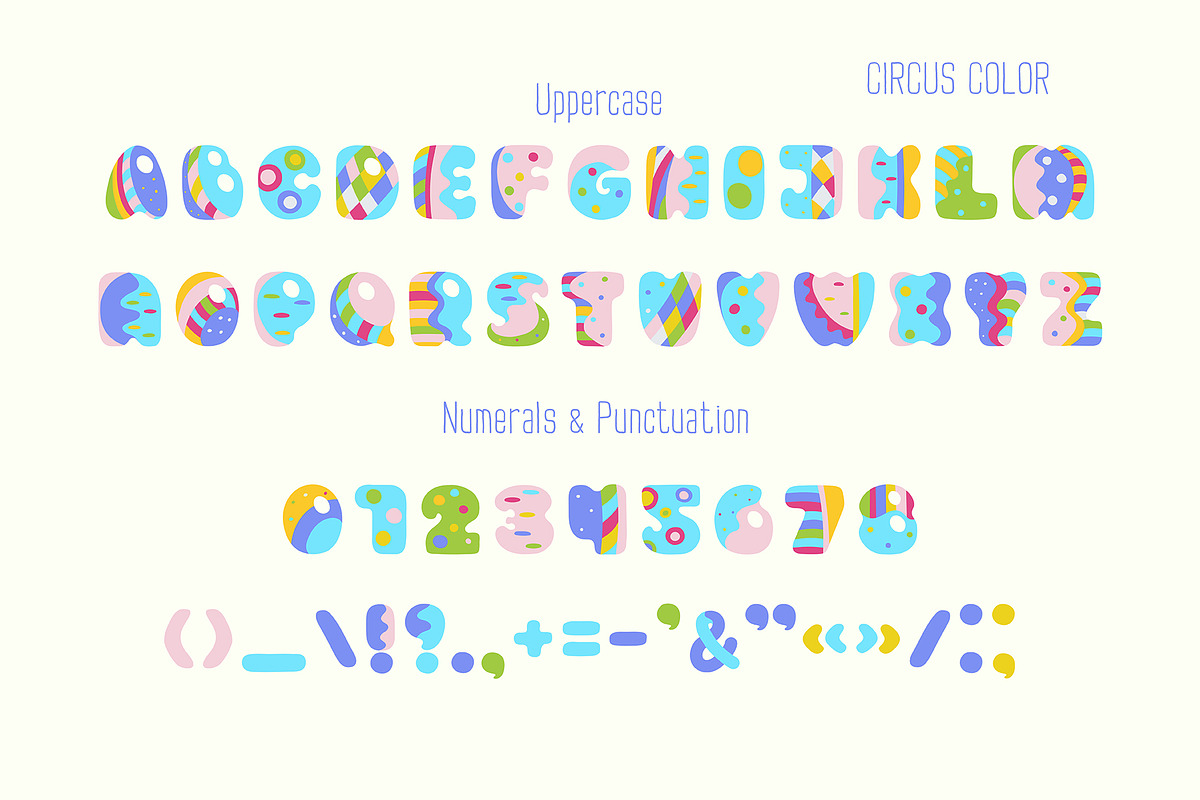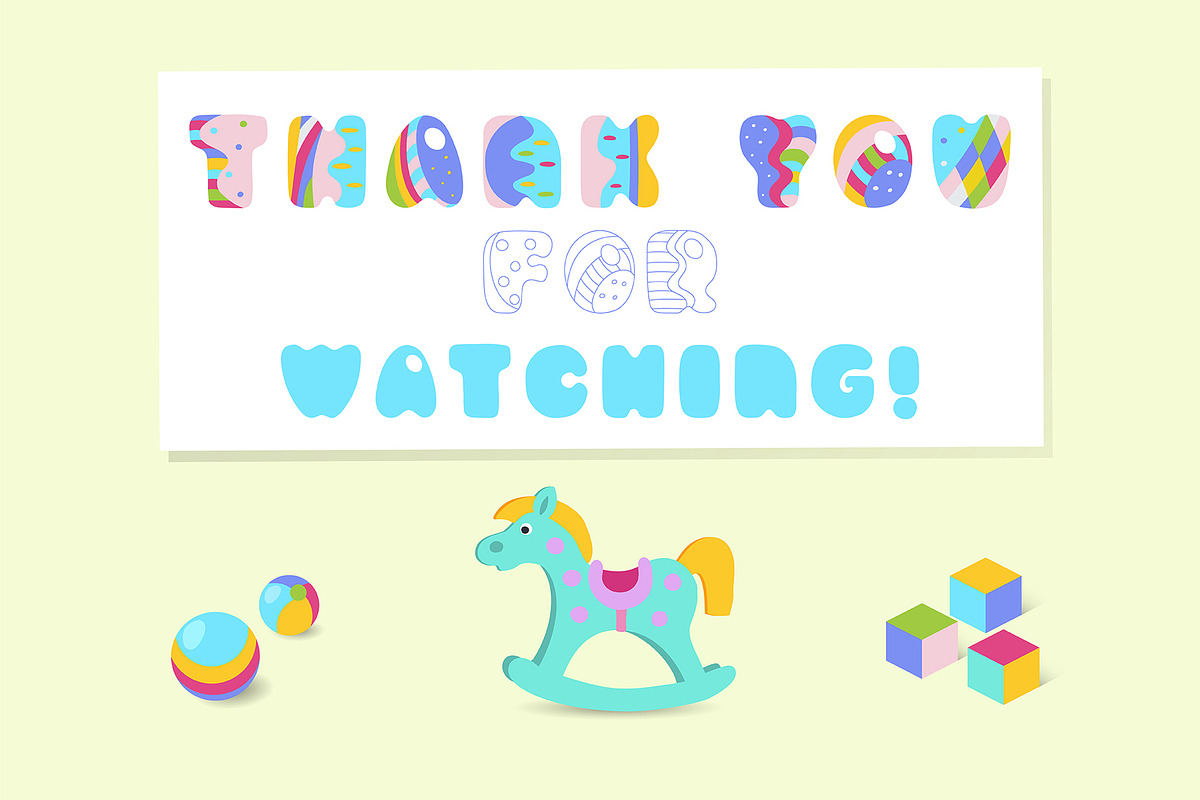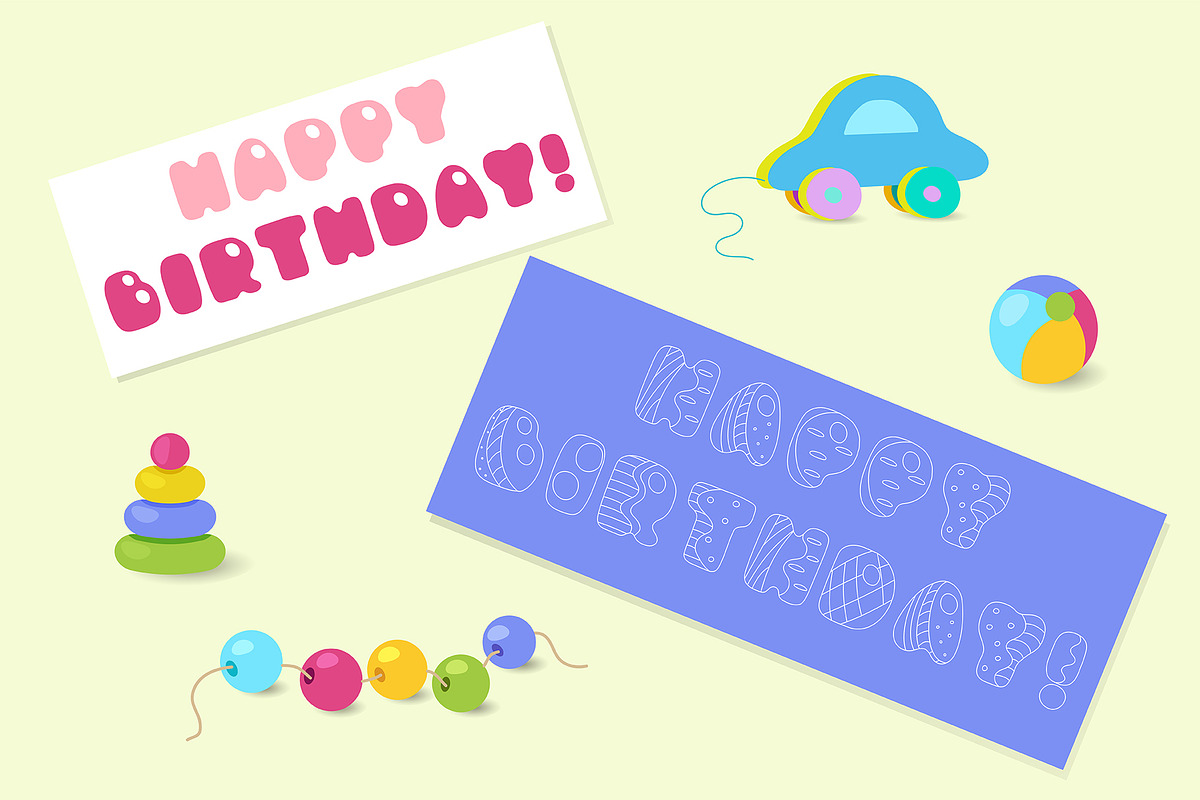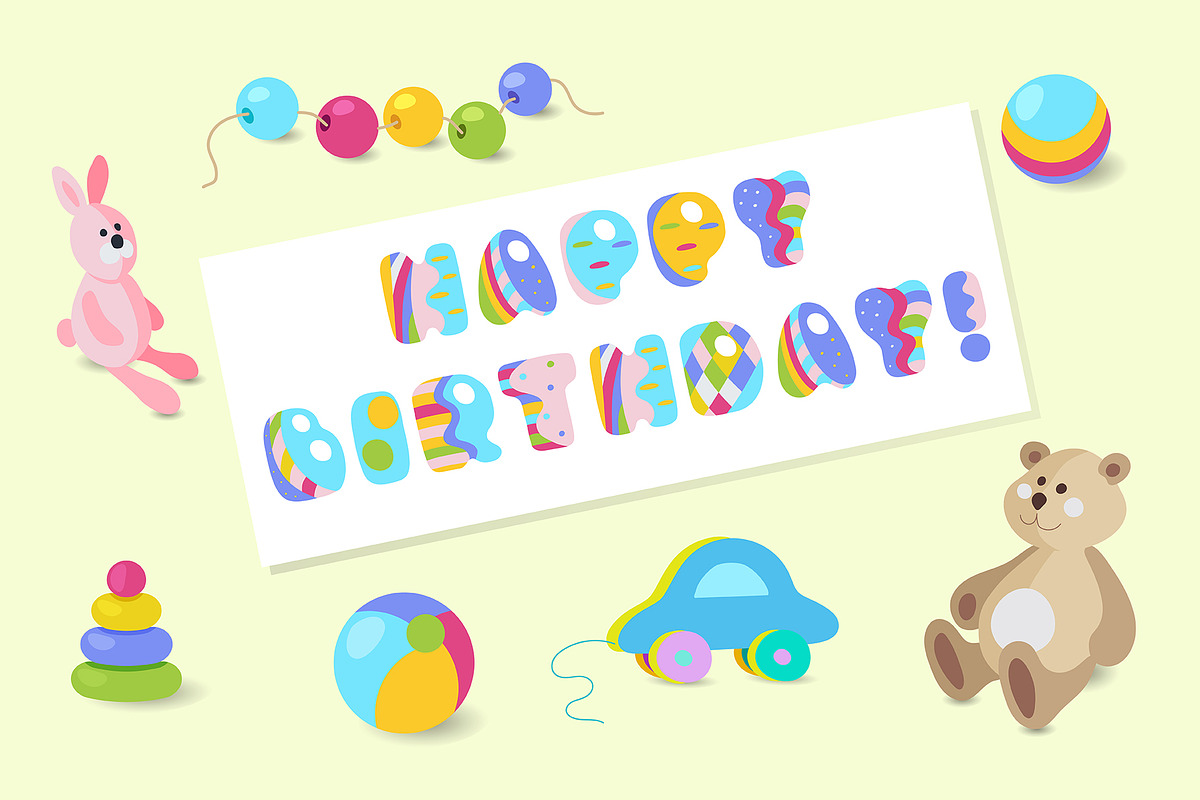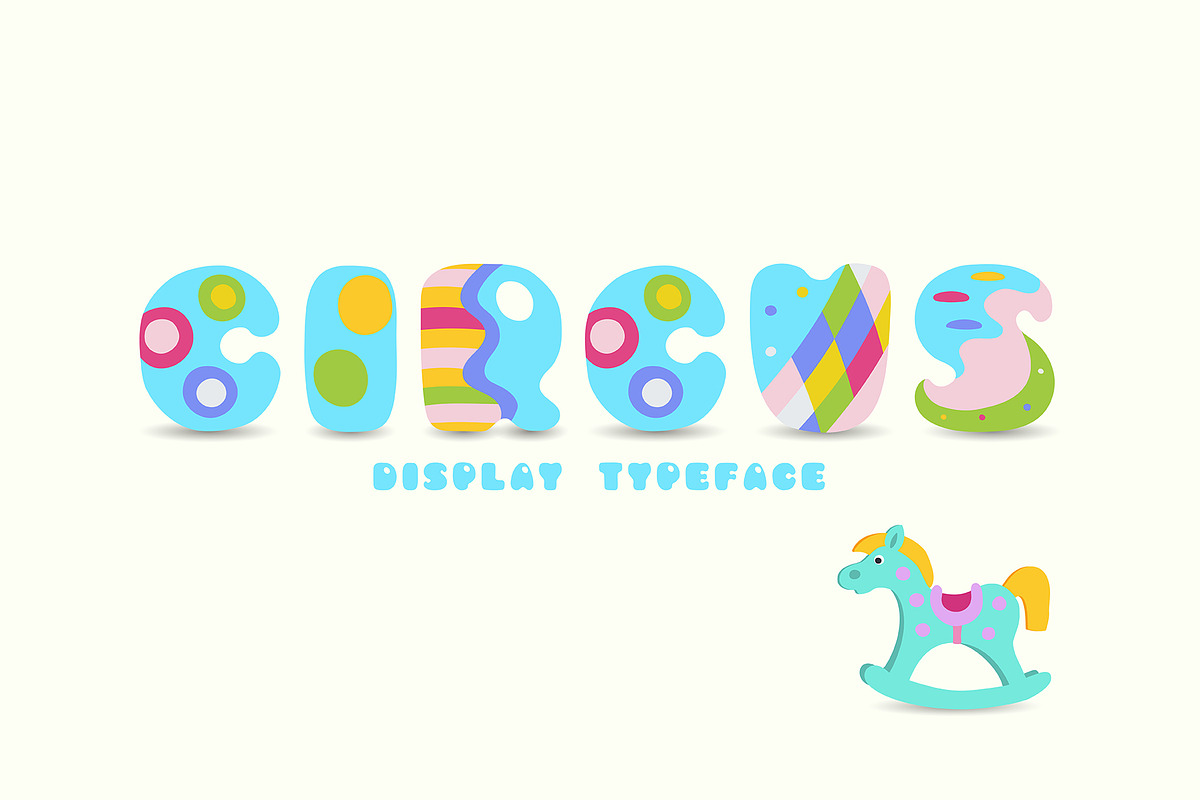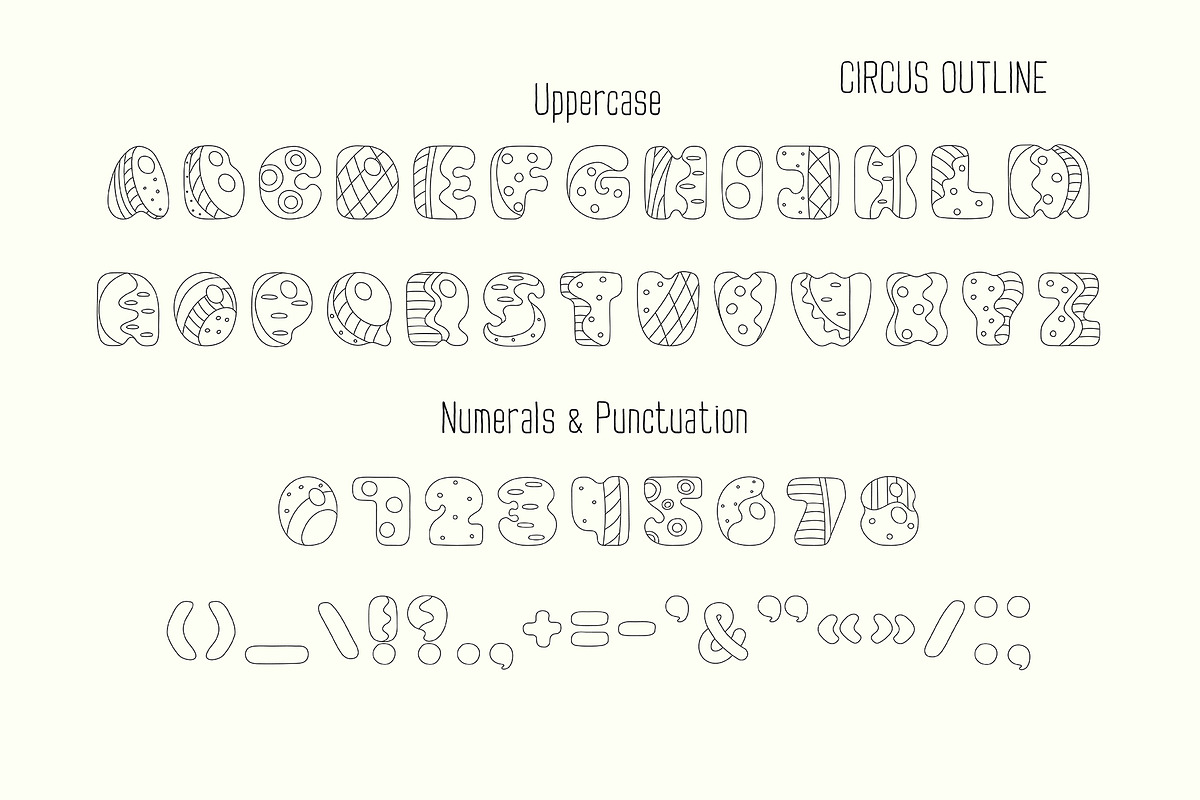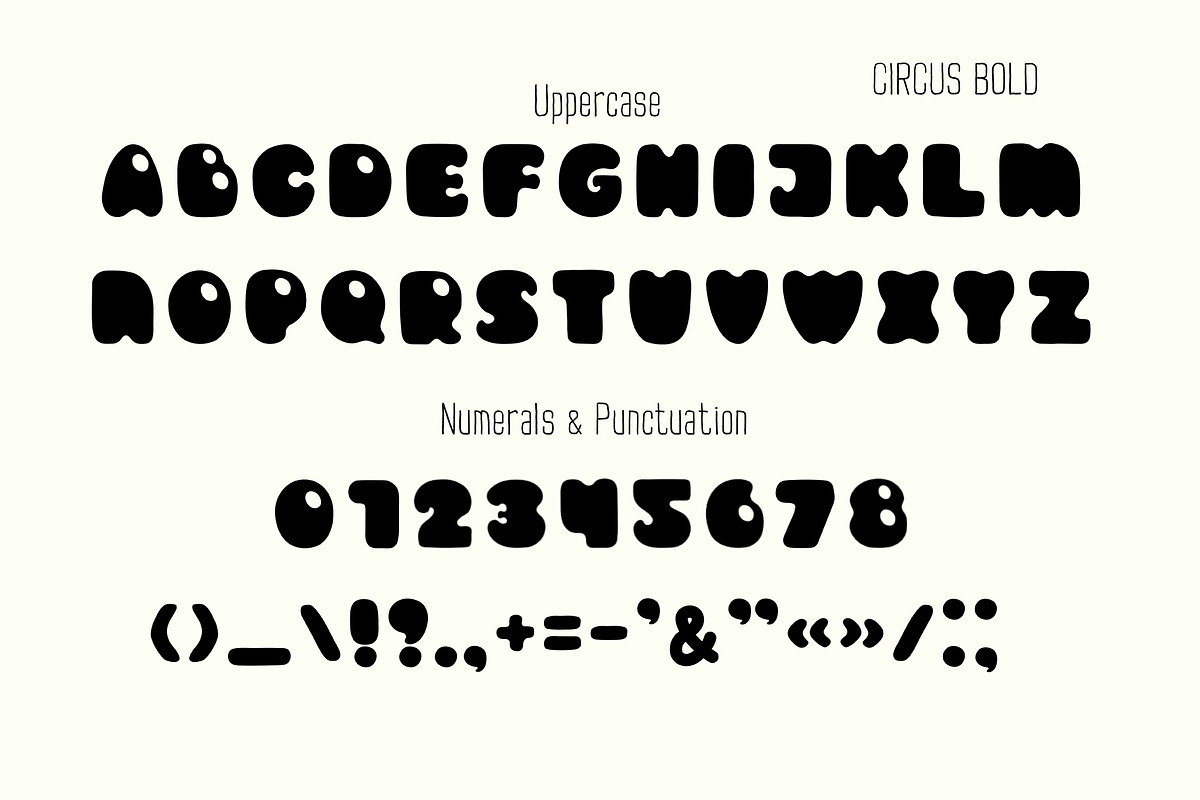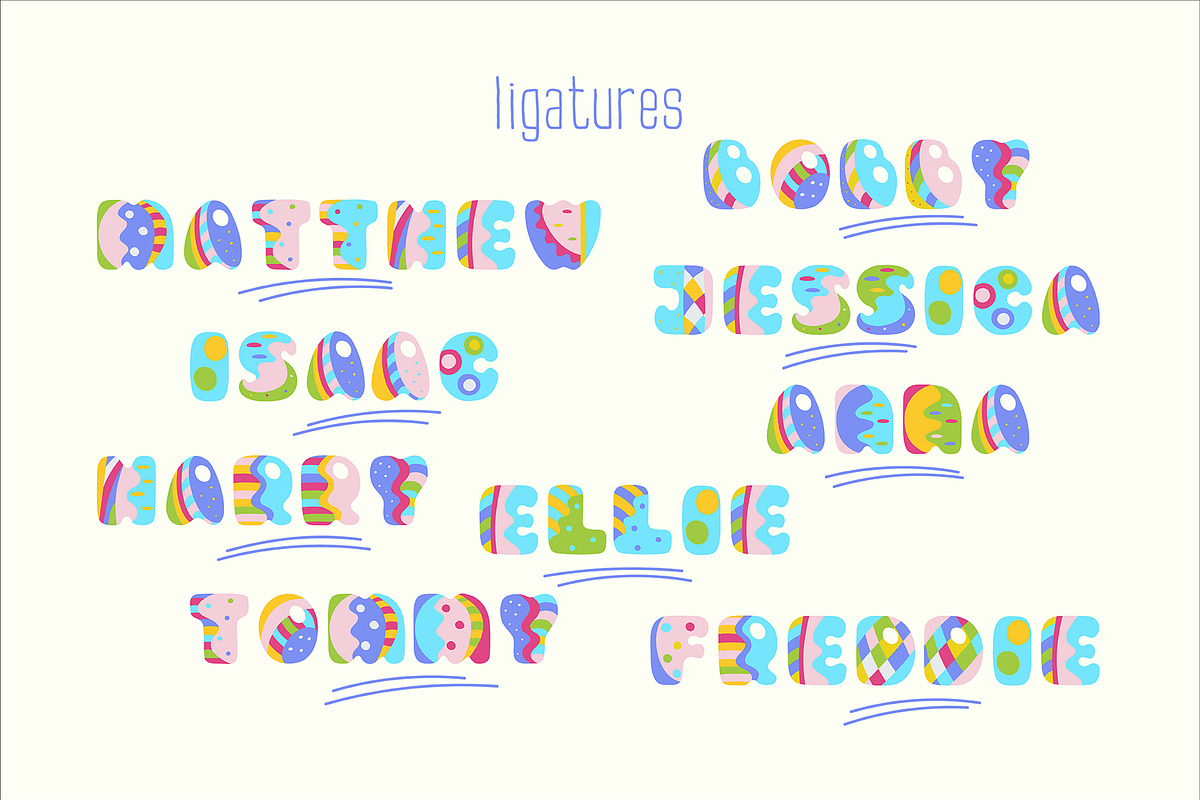
Circus, display typeface
Circus is a funny uppercase display font family that looks great on greeting cards, invitation, kids goods and any over design projects. This font was created with the Illustrator add-on Fontself Maker.
Circus family include:
Circus Color font. Circus color is OTF color font. New technology are compatible with Photoshop CC 2017+ and Illustrator CC 2018.